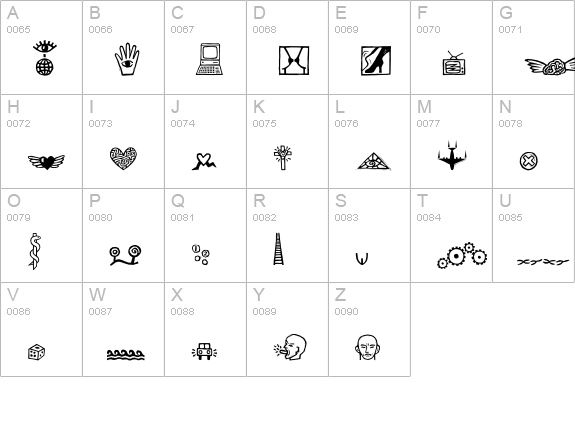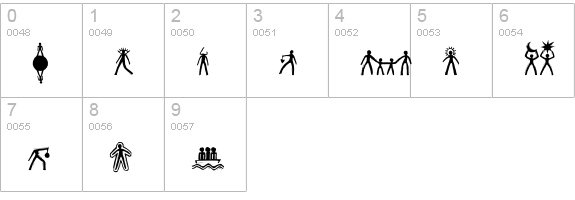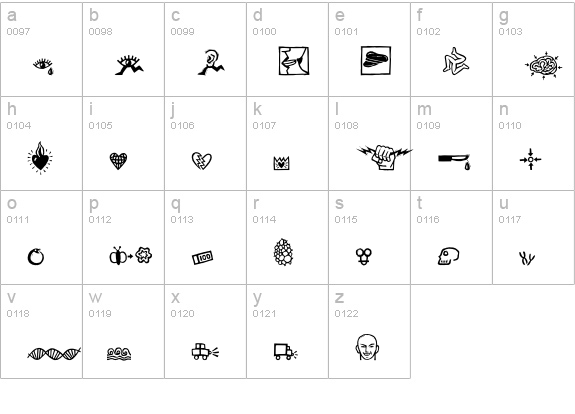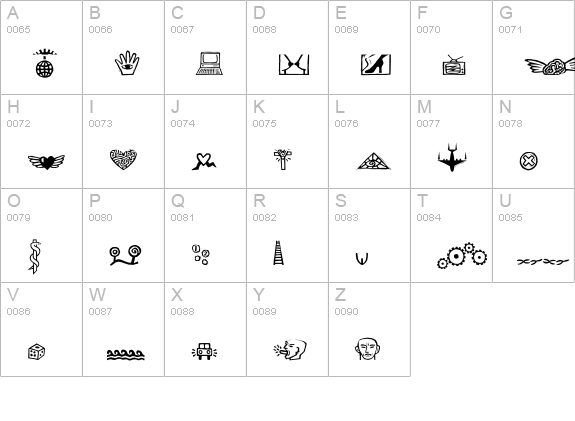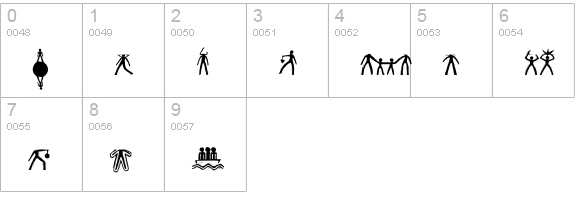
Elementary-Life Font Details
Introducing Elementary-Life font, a versatile and modern typeface that is sure to elevate your design projects to the next level. This unique font exudes a sense of simplicity and sophistication, making it perfect for a wide range of applications, from branding to editorial design. With its clean lines and classic yet contemporary style, Elementary-Life font is a must-have for any designer looking to add a touch of elegance to their work. Whether you're creating a logo, website, or print materials, this font will bring a sense of professionalism and creativity to your designs. Best of all, Elementary-Life font is completely free to download at FontsMarket.com. This means you can access this high-quality font without breaking the bank, making it an ideal choice for designers on a budget. Don't miss out on the opportunity to enhance your projects with this stunning font – download Elementary-Life today and see the difference it can make in your designs.